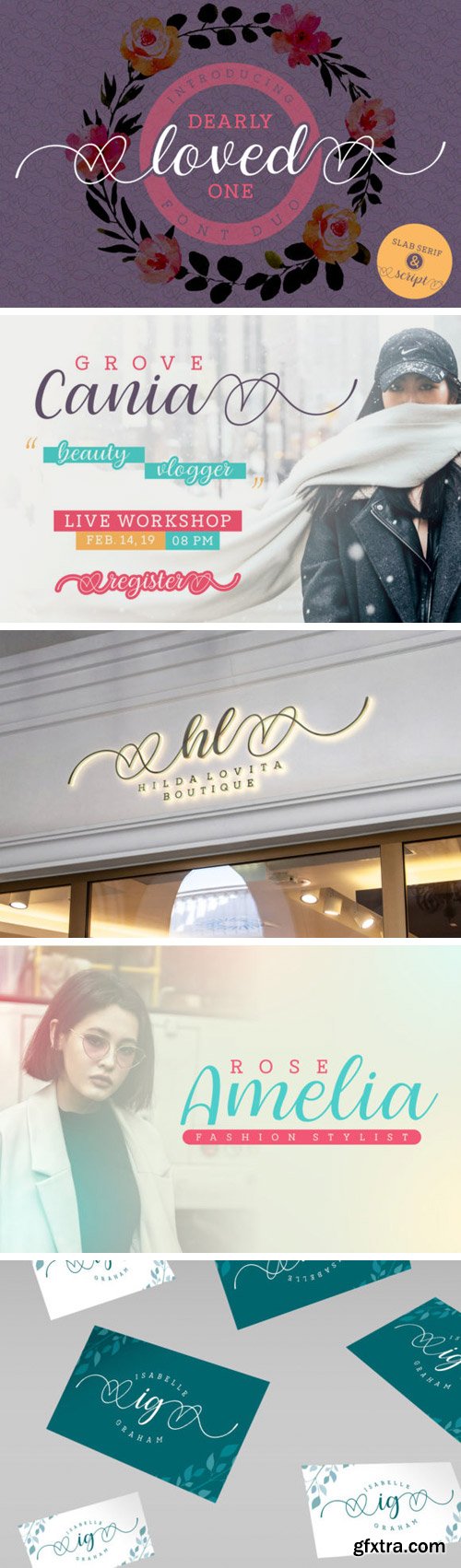
Dearly Loved One Font
Dearly Loved One is a stunning decorative handwritten font that comes packed with heart swashes. Add some love to your designs in an instant with this font. Great for wedding invites, Valentine cards and much more.